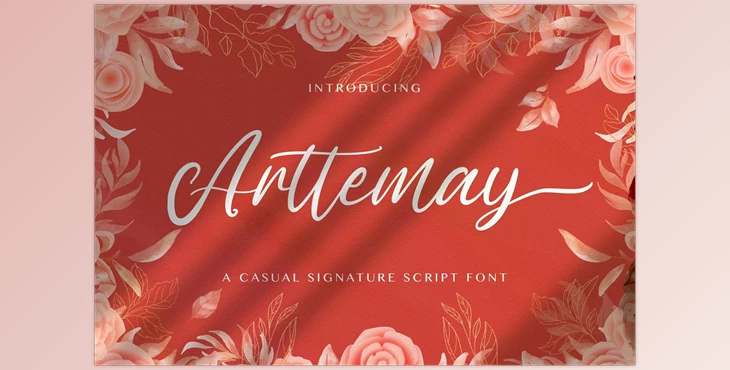
Arttemay – Handwritten Font Creativemarket 5914296: Arttemay is a soft elegant, flowing, and elegant handwritten font. It is a beautiful font with well-balanced characters. As an outcome, it can be found in many designs. Include it in your most imaginative ideas and see how it brings them to life!
Some great features of Arttemay – Handwritten Font:
- Ligatures
- Alternates
- The letters are in uppercase as well as Lowercase letters
- Numbering and Punctuation
- Multilingual Support